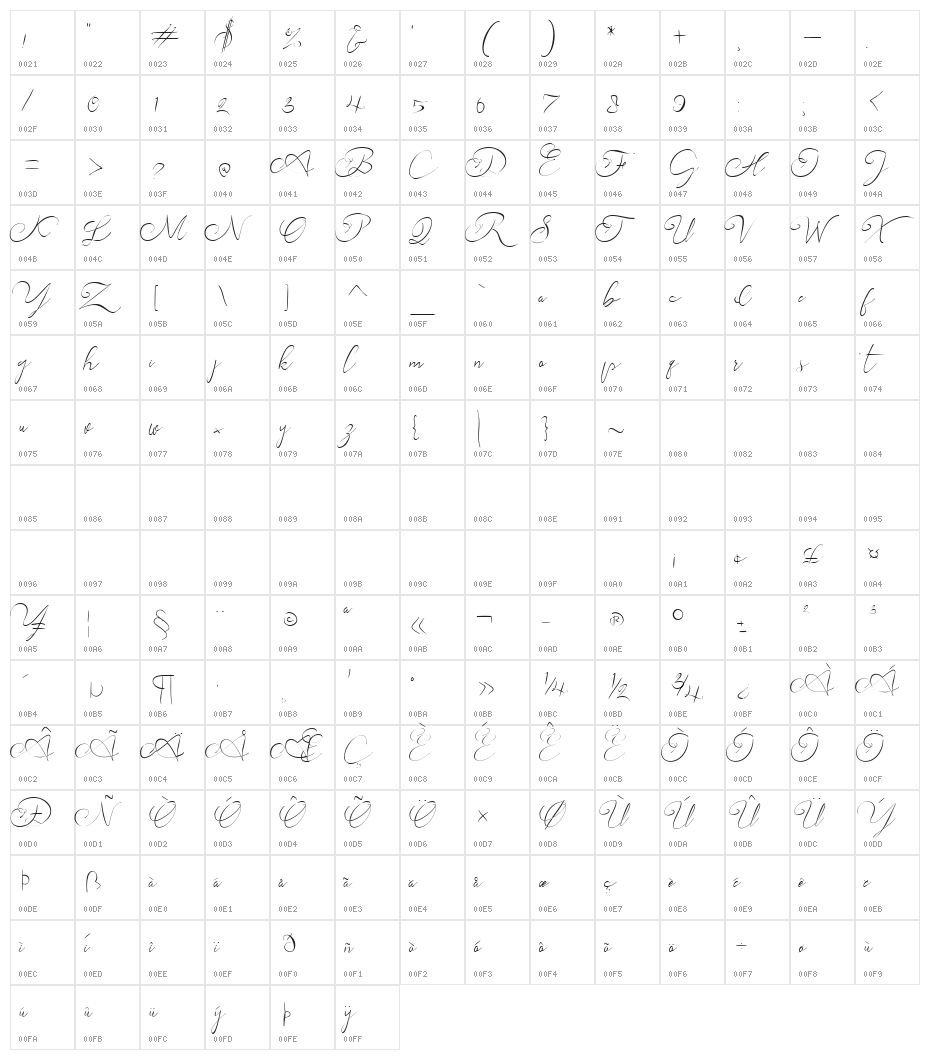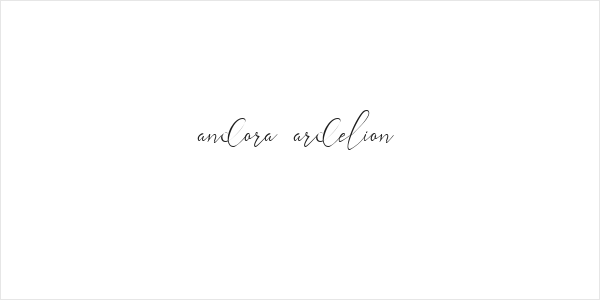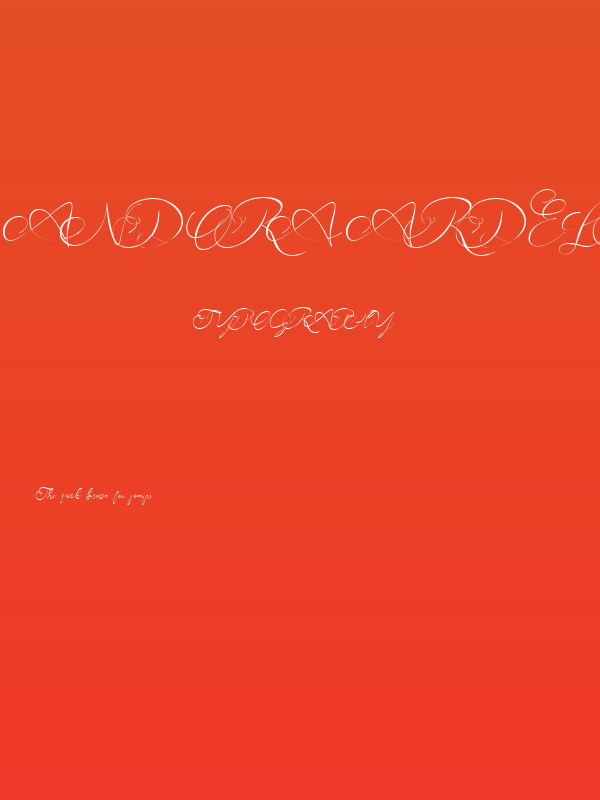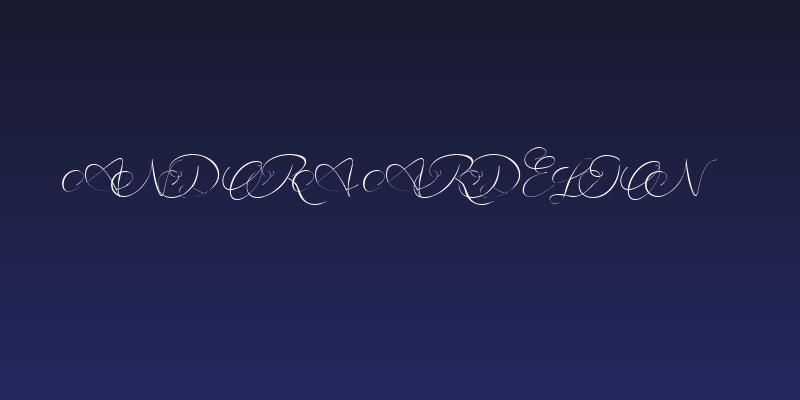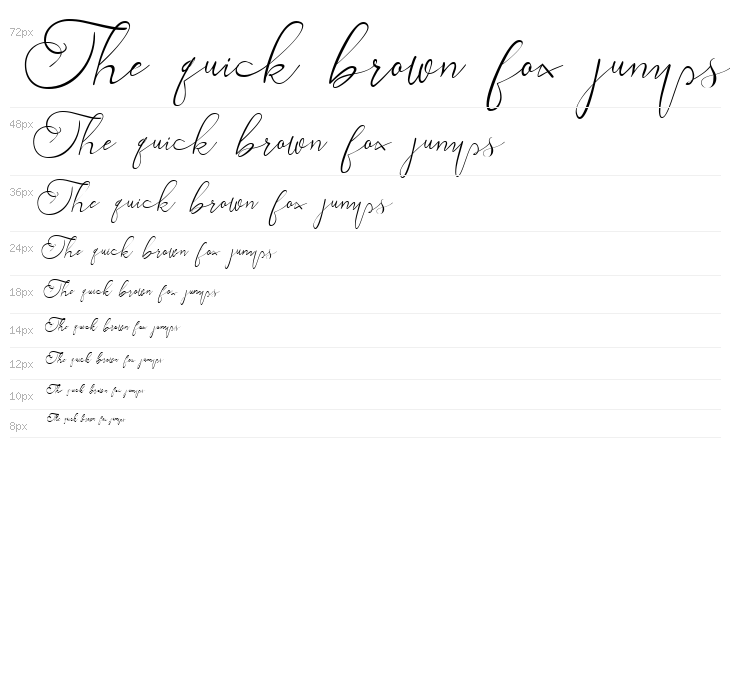
andora ardelion Font
andora ardelion Description
This elegant script font features a flowing, cursive style with intricate loops and flourishes. The uppercase letters are particularly ornate, with sweeping lines that extend beyond the baseline and cap height, creating a sense of movement and grace. The lowercase letters maintain a consistent slant, enhancing the handwritten feel. The numerals are distinct yet harmonize well with the overall style, while the special characters are thoughtfully designed to match the font's aesthetic. This font exudes sophistication and is ideal for projects that require a touch of elegance.
| Overall Style | Elegant, Decorative |
| Proposed Projects | Ideal for wedding invitations, elegant branding, personal stationery, and decorative quotes. |